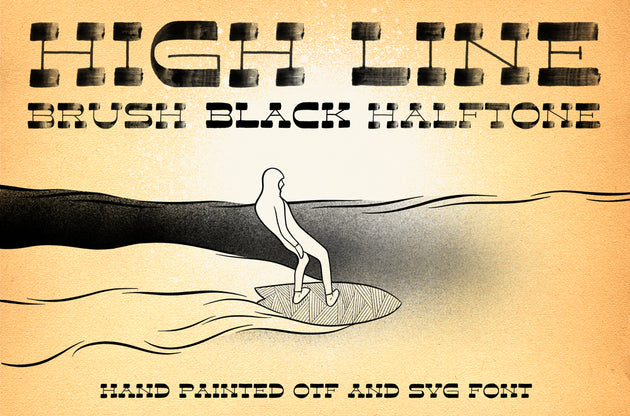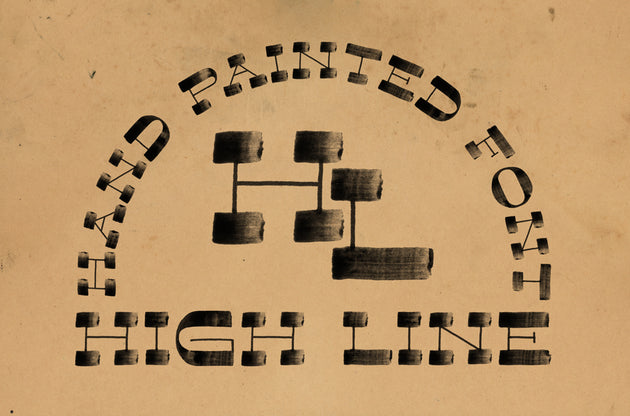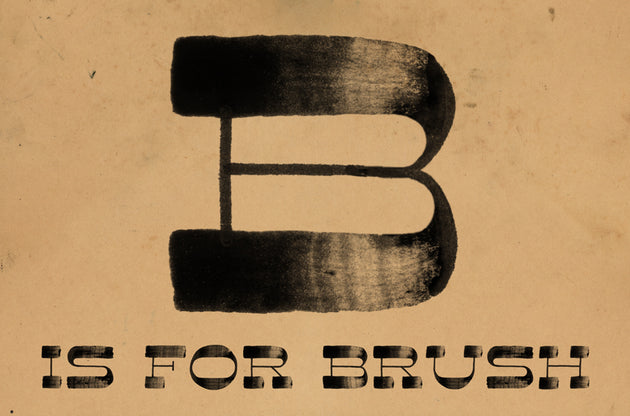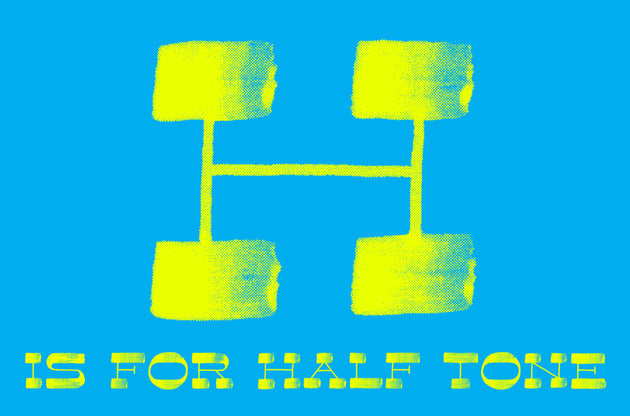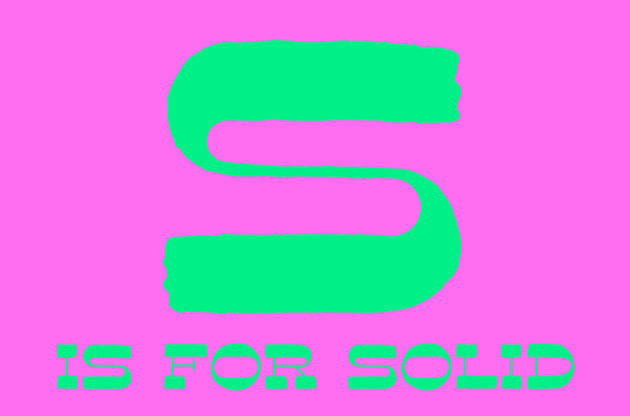
This font looks hand painted because... it was hand painted... outside of a computer.
High Line is a hand painted slab serif font available in 3 unique finishes - Black, Brush and Half-Tone. This OTF font with SVG options was made with India Ink, and the distinct brush strokes can add life to any design.
SVG Fonts, usable in Adobe Photoshop, enable the nuance and texture of a hand lettered type to translate to the font form. The Brush version of High Line is a great example of how an SVG font can emulate hand painted type. You can use adjustment layers to change the color of the font and adjust the font layer using "multiply" to achieve stunning, true to life, paint effects!
The Black version of High Line is a vector OTF font that is infinitely scalable. It still possesses the nuance of a hand lettered font, while working just like any other font in your font library.